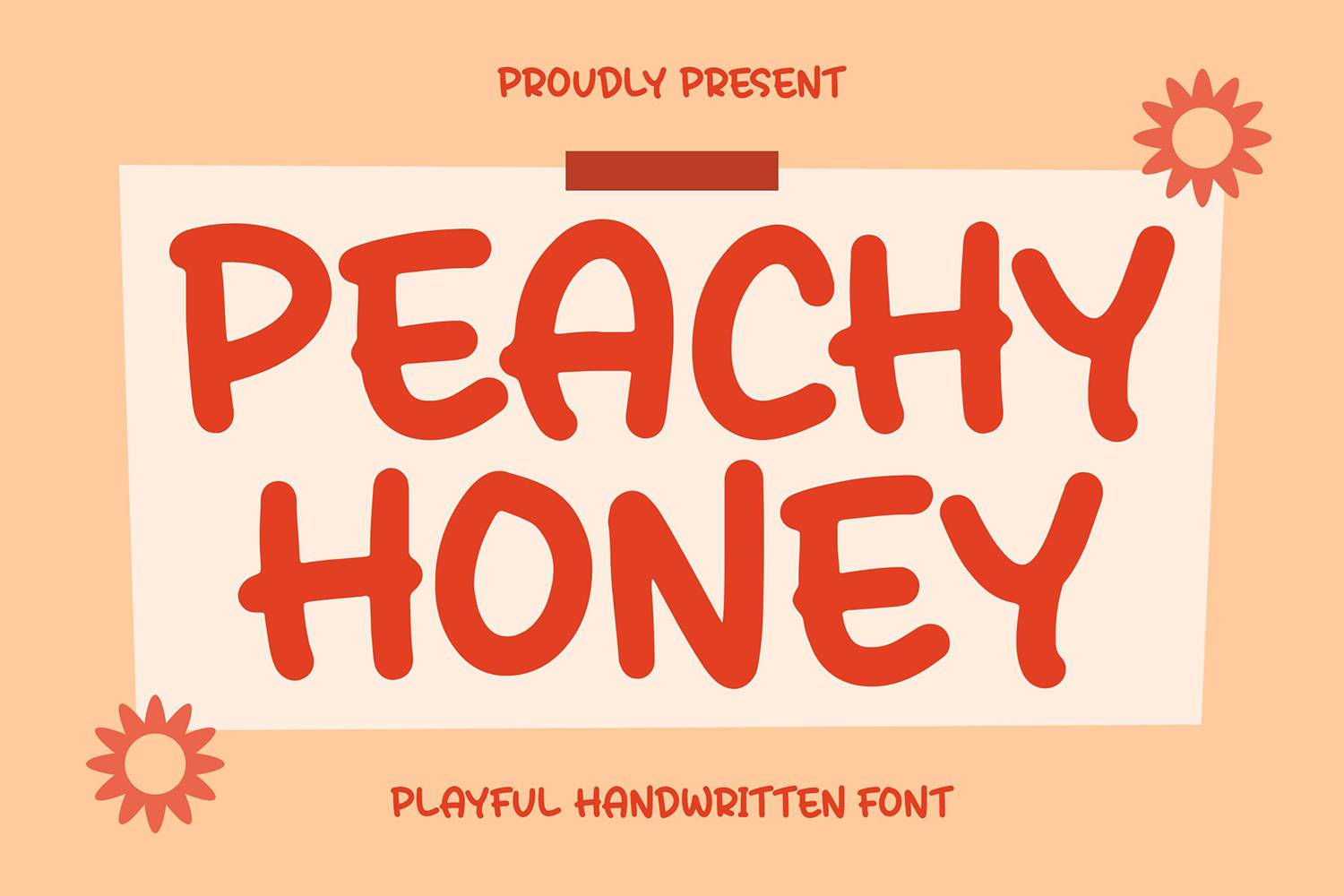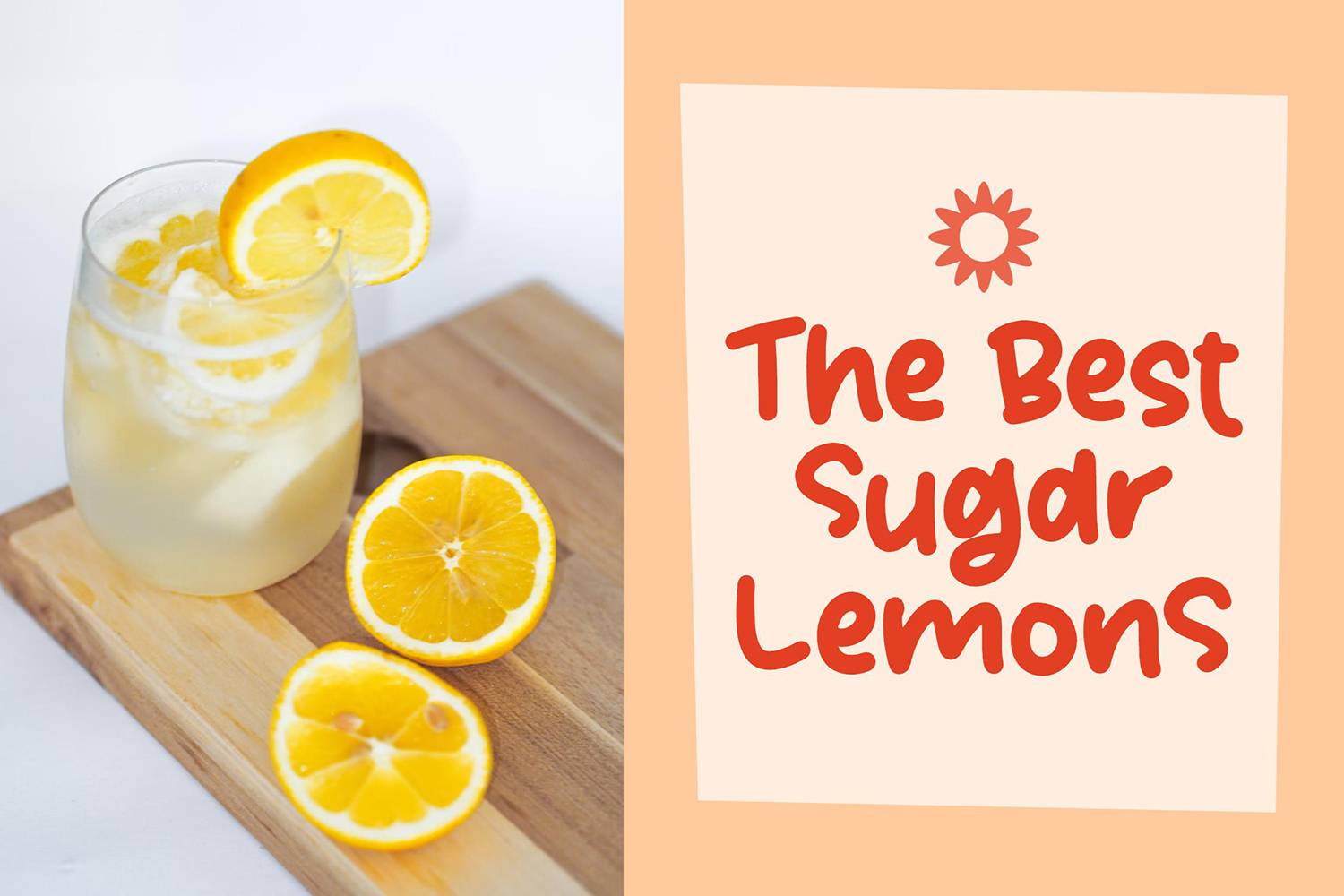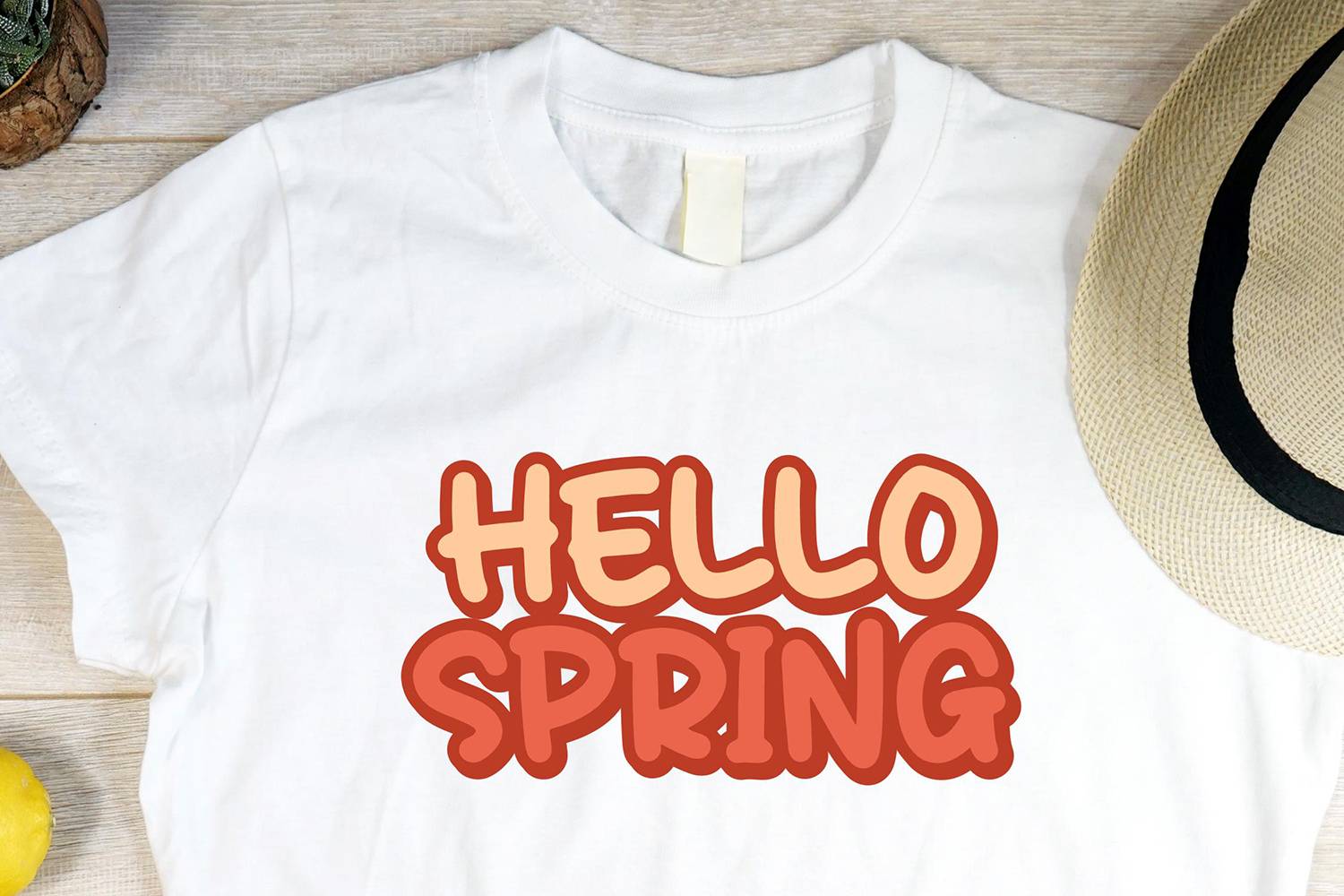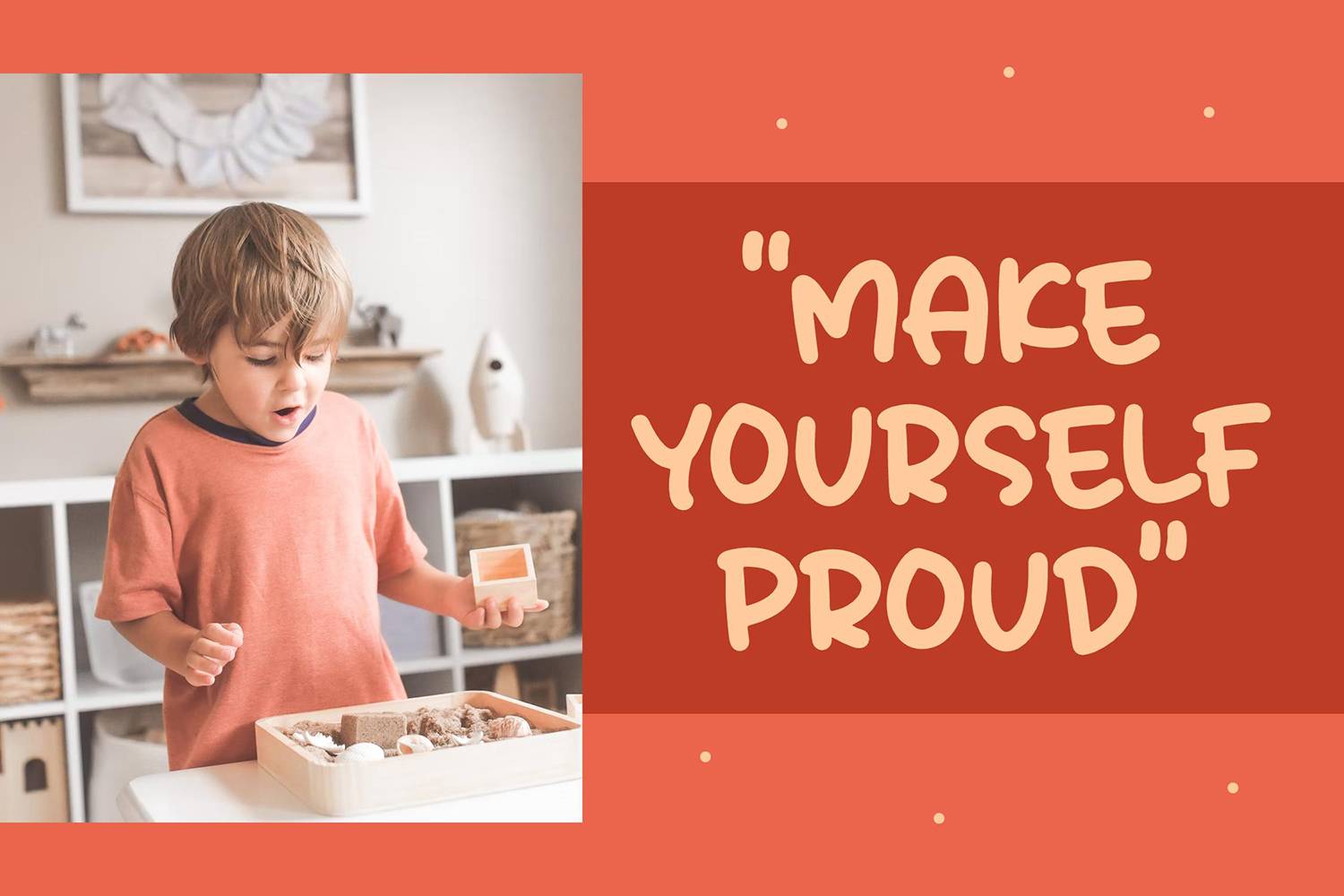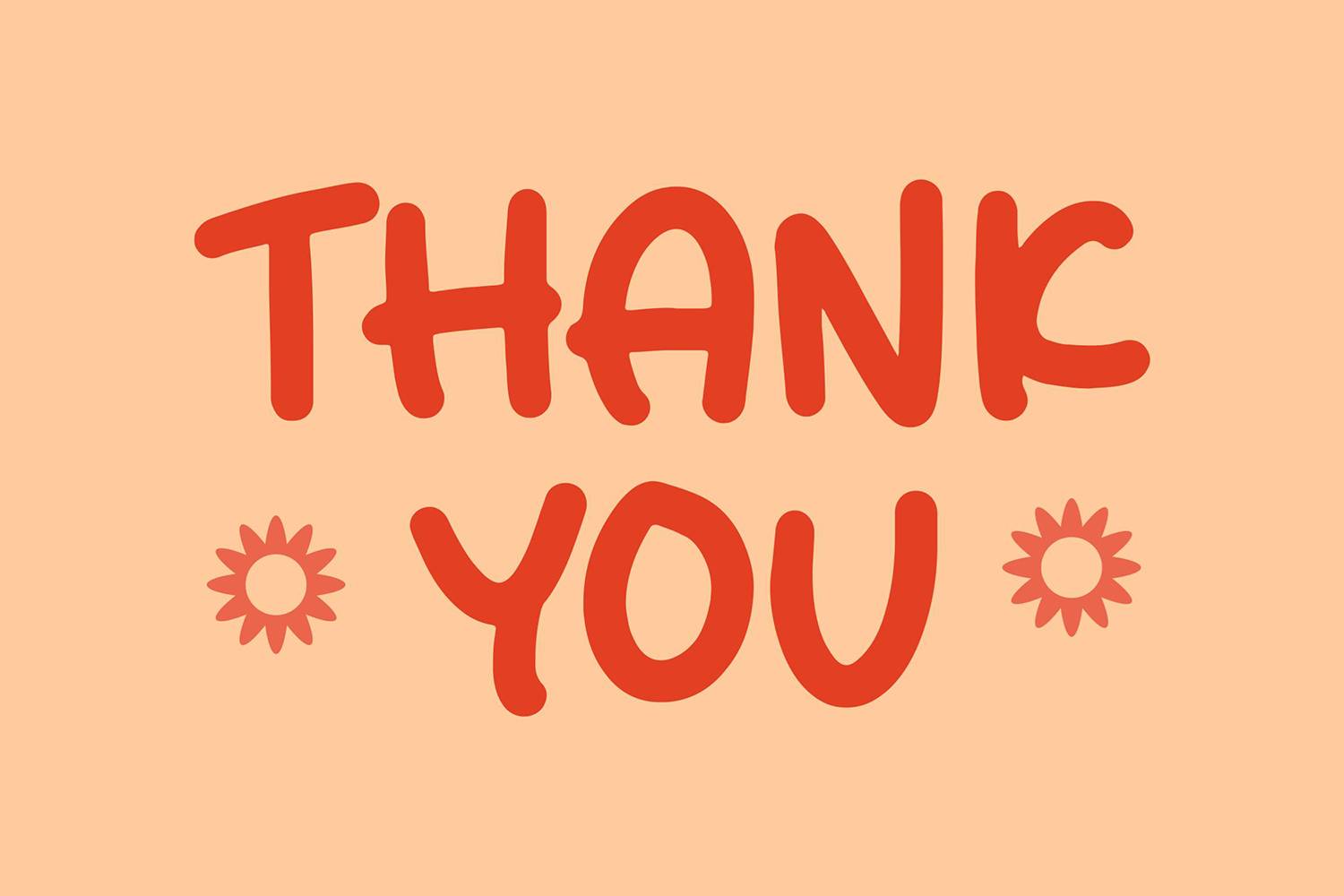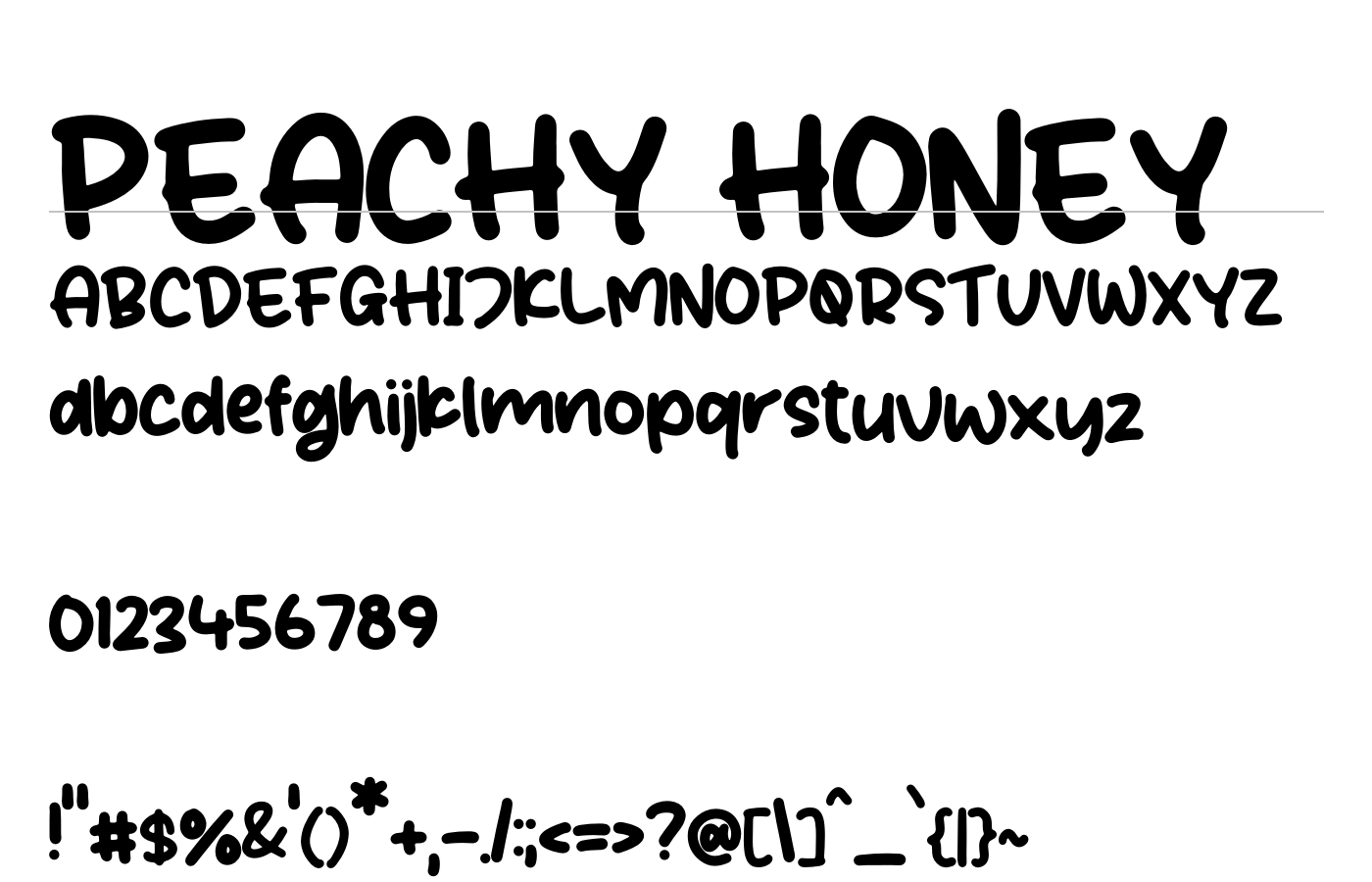
Peachy Honey is a playful and friendly handwritten sans serif font with rounded, bold strokes giving it a soft and approachable feel. Its casual, slightly uneven letterforms and lively personality make it perfect for informal designs, children's materials, and branding that aims to be warm and inviting. This font works wonderfully in logos, packaging, and headlines where a fun, energetic vibe is desired.
Peachy Honey Font